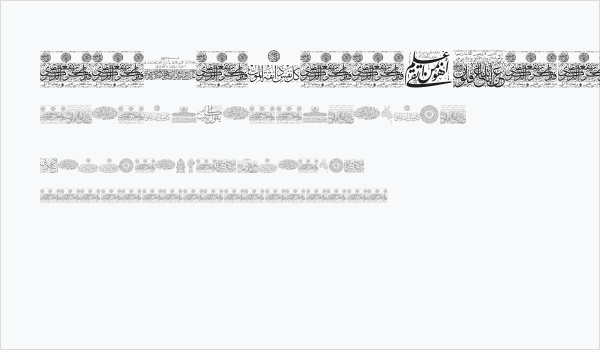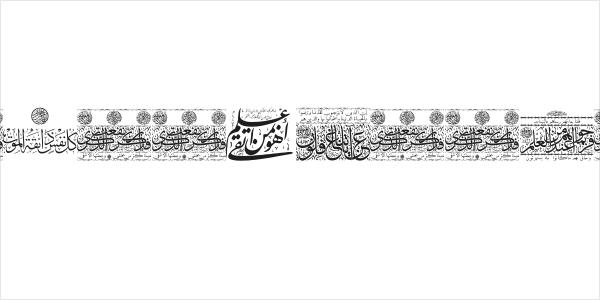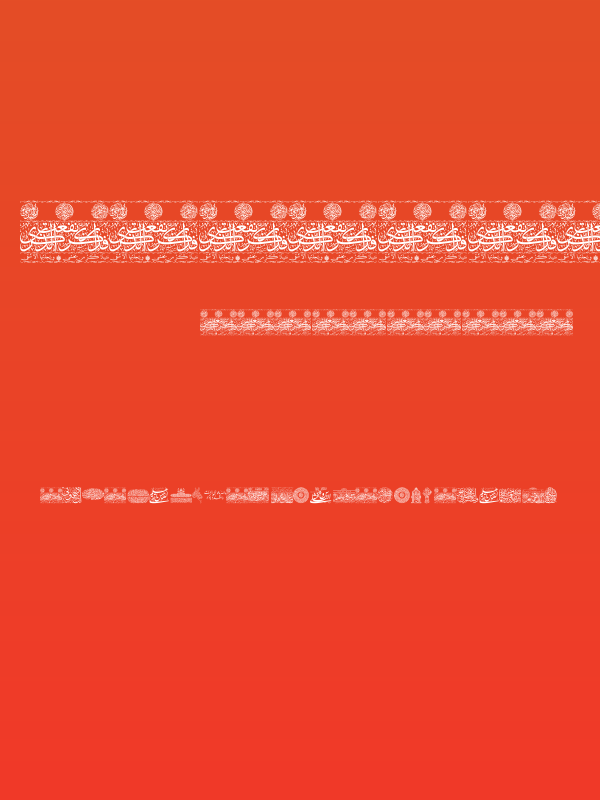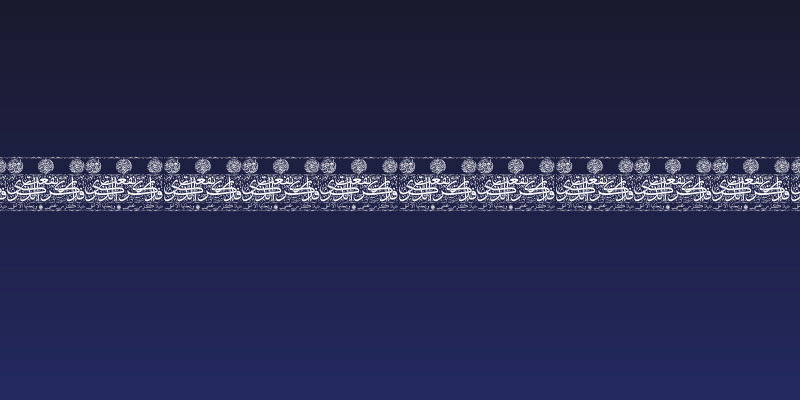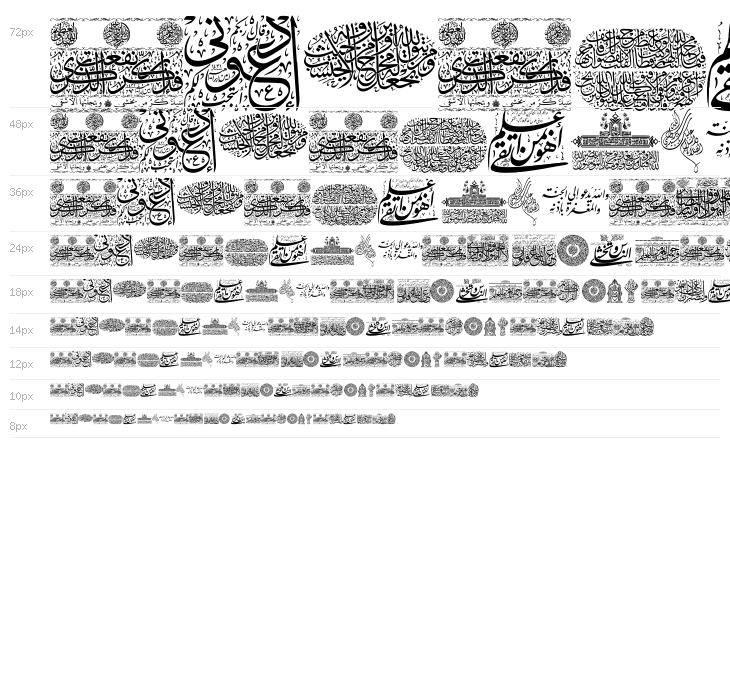
Aayat Quraan_040 Font
Aayat Quraan_040 Description
Highly decorative Arabic script featuring intricate calligraphic elements and ornamental borders, with dense, complex glyphs and elaborate flourishes, commonly used in religious or ceremonial contexts.
| Overall Style | Decorative, Traditional, Religious |
| Use Case | Religious scripture, ceremonial headings, ornamental design |
| Proposed Projects | Religious texts, ceremonial documents, decorative panels, invitations, cultural posters. |